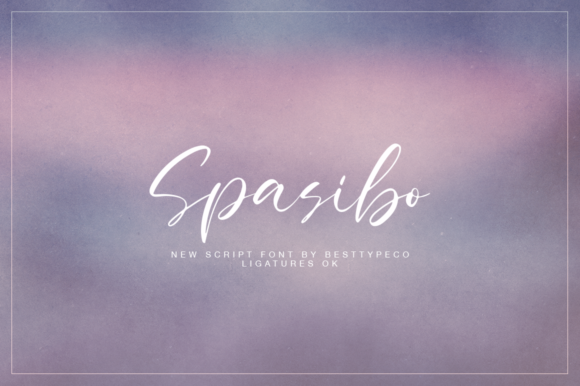
Behold the Spasibo Font, a harmonious symphony of elegance and charm brought to you by the brilliant minds at BennyDesigns. This captivating script dances across the page like a whisper of grace, leaving a trail of awe-inspiring beauty in its wake. Its delicate strokes, reminiscent of the gentle caress of a feather, will elevate your designs to new heights of sophistication, leaving your audience spellbound.
The Spasibo Font family, a collection of carefully crafted typefaces, offers a diverse range of styles to suit every creative vision. From the classic elegance of Spasibo Regular to the playful exuberance of Spasibo Bold, each font exudes its unique charm, allowing you to express your individuality and make a lasting impact.
Designed with passion and attention to detail, the Spasibo Font is meticulously optimized to provide a seamless user experience. Crisp edges and smooth curves ensure effortless readability, while its delicate flourishes add a touch of timeless elegance to your projects. Whether you're crafting a heartfelt personal message, designing an unforgettable logo, or creating an enchanting social media post, the Spasibo Font will elevate your words and designs to unparalleled levels of beauty and sophistication.
As you immerse yourself in the Spasibo Font family, you'll discover a world of creative possibilities. Its versatility knows no bounds, making it the perfect choice for a multitude of projects. Craft breathtaking wedding invitations that exude romance and elegance, design captivating marketing materials that leave a lasting impression, or create enchanting social media posts that captivate your audience. The Spasibo Font is your gateway to a world of limitless creative expression.
Transform your creative vision into a reality with the Spasibo Font family. Its exquisite design, exceptional versatility, and user-friendly features make it the ultimate choice for discerning designers and creative professionals alike. Embrace the beauty of Spasibo and let your imagination soar to new heights.